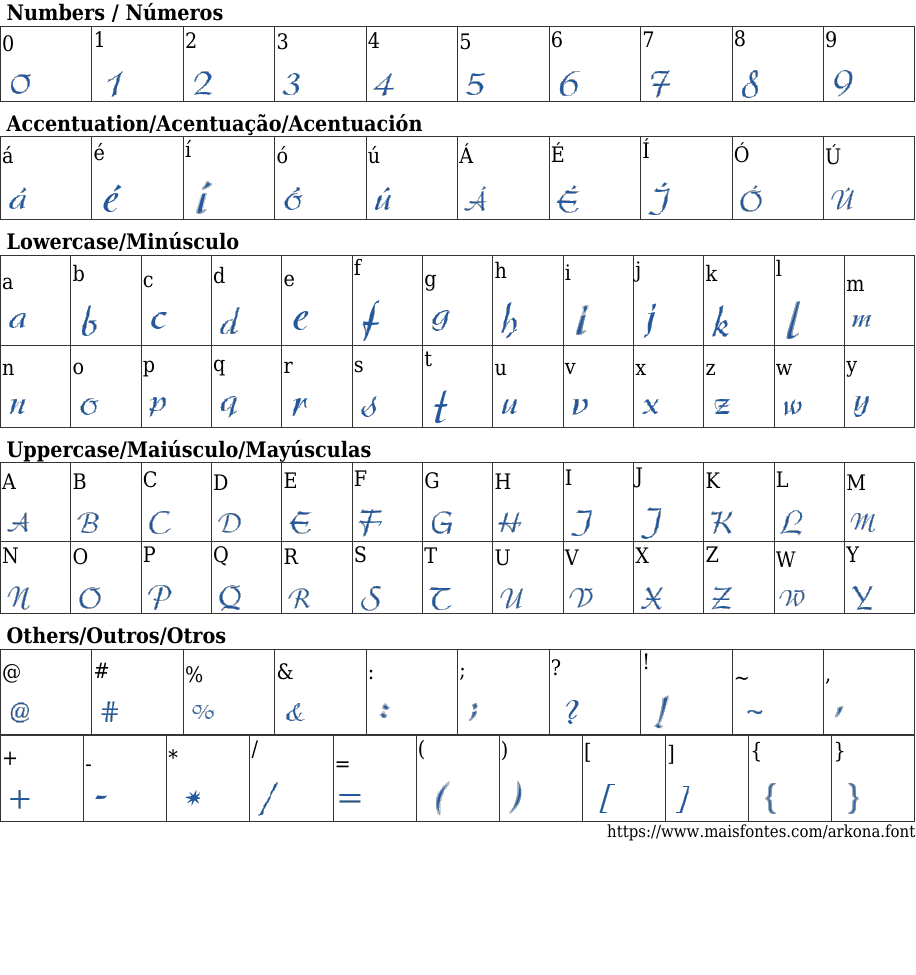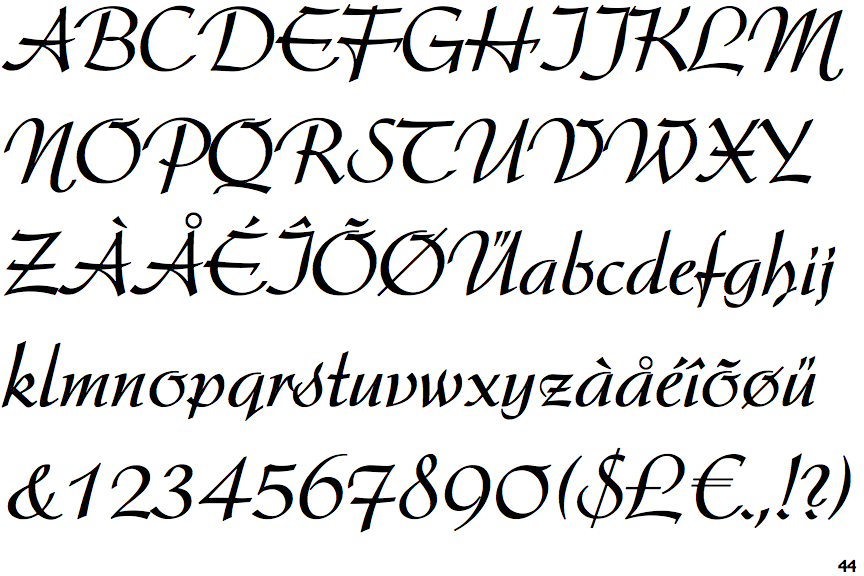
Arkona Font . Download arkona regular for free. 'find my font' is an easy to use application for identifying fonts in digital images. Download the berthold scripts be 3 volume font for mac or windows in opentype, truetype or. The font subfamily is romanitalic. Click the download button to download the. Arkona was designed in 1935 by karl klauß. Arkona is the perfect font for all your fun designs. View sample text, character map, user rating and review for. This script dresses up informal documents and adds lightness to formal documents. Please review any files included with your download, which will usually include information on the usage and licenses of the fonts.
Arkona Font This script dresses up informal documents and adds lightness to formal documents. Click the download button to download the. Download arkona regular for free. Please review any files included with your download, which will usually include information on the usage and licenses of the fonts. This script dresses up informal documents and adds lightness to formal documents. The font subfamily is romanitalic. Arkona is the perfect font for all your fun designs. 'find my font' is an easy to use application for identifying fonts in digital images. Download the berthold scripts be 3 volume font for mac or windows in opentype, truetype or. View sample text, character map, user rating and review for. Arkona was designed in 1935 by karl klauß.